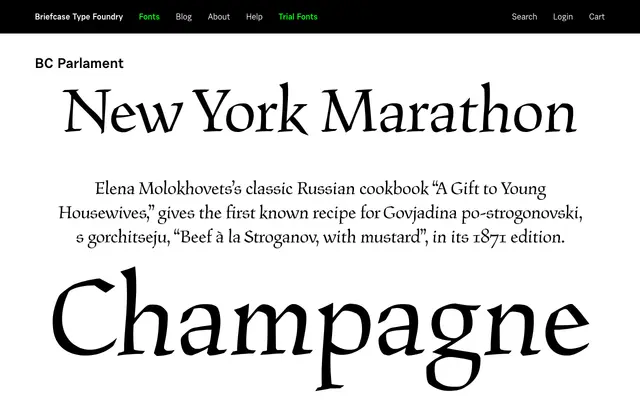
A serif typeface from Briefcase Type Foundry with formal, parliamentary connotations rooted in Central European type tradition.
BC Parlament sits within Briefcase Type Foundry's catalogue of Central European-influenced typefaces. The name implies a formal register suited to institutional and editorial contexts. Page detail is limited, but it aligns with the foundry's broader interest in historically grounded Latin serif design.
The name 'Parlament' and Briefcase Type Foundry's Central European heritage suggest a formal, classical serif in the transitional or old-style tradition, though the page content is too sparse to confirm precise subcategory with certainty.